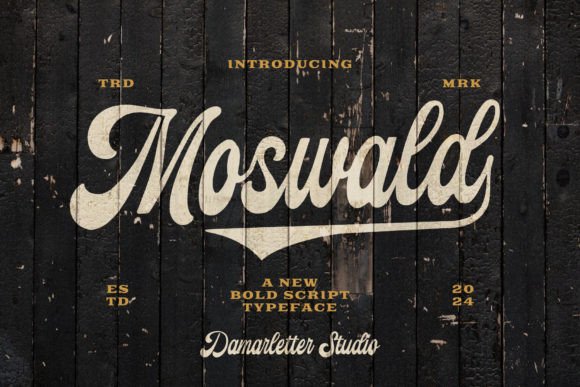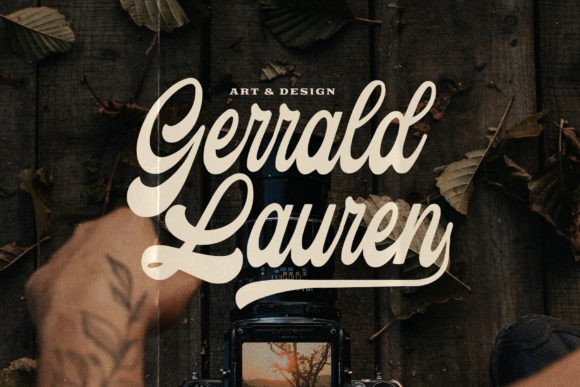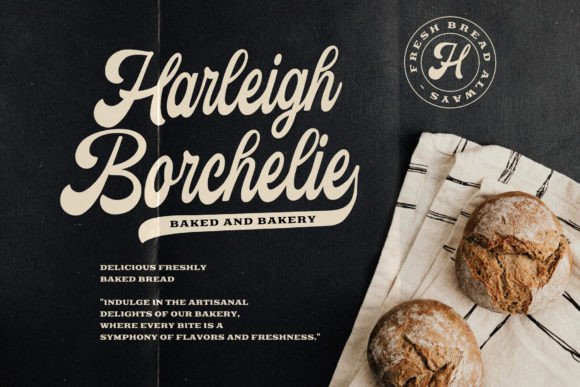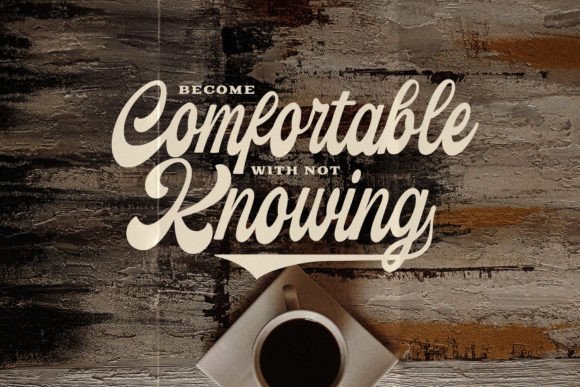
Moswald Font
About the Moswald Font
Let us introduce you to Moswald Font, where timeless design meets modern craftsmanship. Exuding timeless charm and elegance, Moswald is a luxurious and multifaceted script font that is the gold standard in typographical sophistication. Its beautifully fluid strokes and delicately fine-tuned letterforms inject a taste of eternal beauty into your designs, effortlessly reflecting its divine inspiration from the art of classical calligraphy. Striking a harmonious accord between antiquated grace and modern vibrancy, Moswald distinctly stands out.
From ornate wedding invites to fashionable brand identities, compelling editorial designs to attractive signage, Moswald’s graceful arcs and mild flourishes are suited to an extensive gamut of applications. The ultimate tool to craft exquisite logos, sumptuous packaging, or sentimental greeting cards, Moswald will undeniably infuse your projects with a hint of finesse and allure.
Inviting you to experience the charm of handwritten artistry, each alphabetic creation in this font is intricately tailored to radiate elegance and poise, enabling your words to bloom with a sense of sophistication. Engage with the nuanced beauty of the Moswald script font and allow your designs to soar on its eternal charismatic wings.
Moswald Font Usage Examples
Moswald Font Example